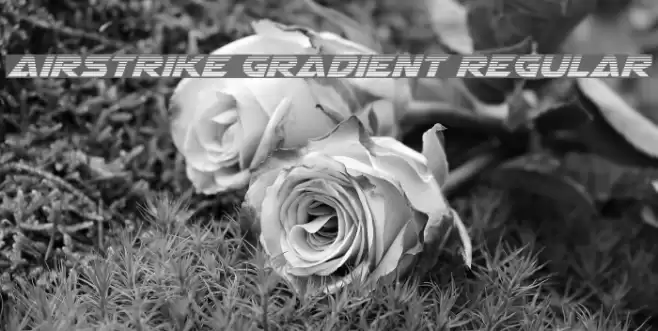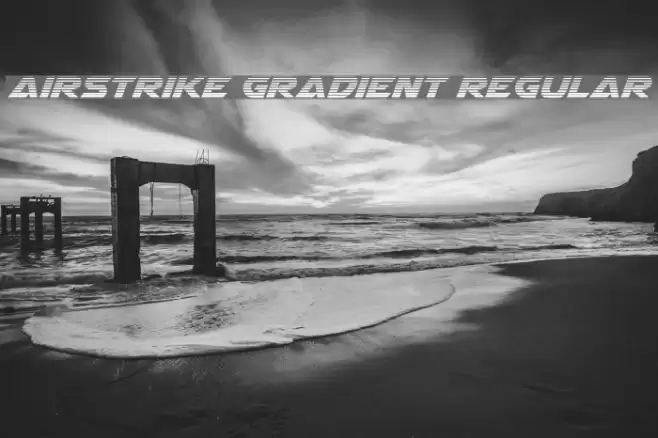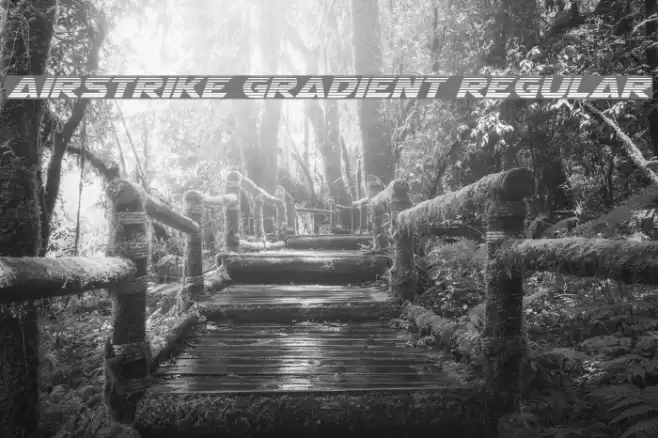
Airstrike Gradient Regular Font
Airstrike Gradient Regular Description
This font features a dynamic and futuristic design with a distinct gradient effect across each character. The letters are bold and italicized, giving a sense of movement and speed. The horizontal lines create a striped pattern that adds a unique texture, making it stand out in any design. The uppercase and lowercase letters maintain a consistent style, while the numbers and special characters complement the overall aesthetic. This font is perfect for projects that require a modern and edgy look.
A bold, italicized font with a futuristic gradient and striped design from Uncategorized fonts.
- Proposed Projects: Ideal for sports branding, tech-related designs, video game titles, and dynamic posters.